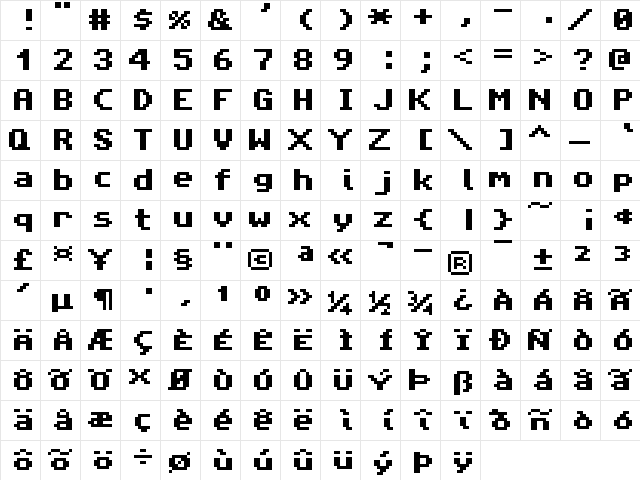
Amiga Forever Regular
Design Context for Amiga Forever Typeface
Amiga Forever takes a measured approach to typography — its balanced proportions and neutral character make it a reliable workhorse for both digital and print work.